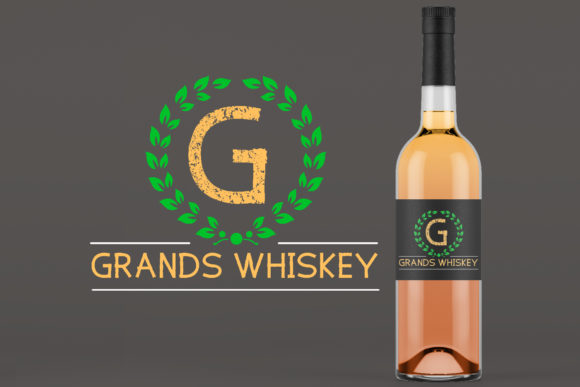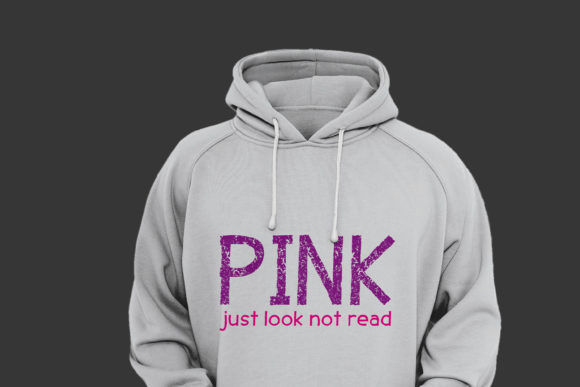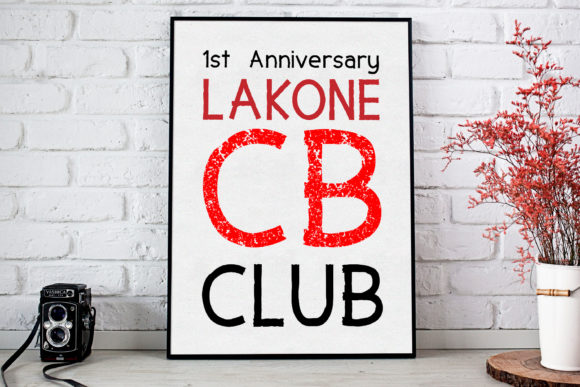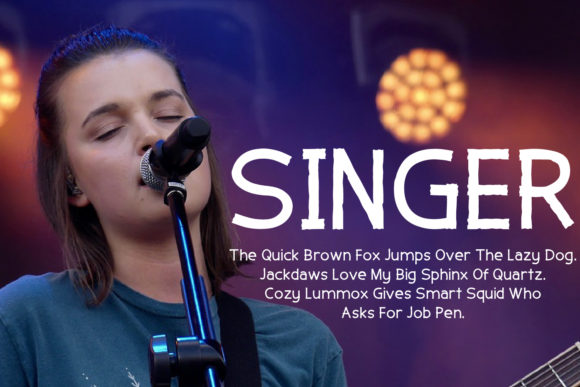
Introduction to Plank Font
Have you ever found yourself staring at a blank canvas, waiting for the perfect design to come to life? The blank slate of a new creative project can be both exhilarating and intimidating, but with the right tools, it can become a beautiful thing. For designers, the search for the perfect font can be a daunting task, but what if we told you that we’ve discovered a game-changer?
Meet the Plank Font, a fresh and unique typeface that’s about to become your new best friend. With its simple, minimalist, and vintage feel, this font is a design resource that’s sure to elevate any project. Whether you’re working on a free download or a high-quality commercial design, the Plank Font is the perfect addition to your toolkit.
Key Features of Plank Font
- Plank Font includes 10 unique characters, including letters, numbers, and symbols
- Perfect for use in logos, branding, and other visual identity elements
Honest Review: Plank Font
I recently stumbled upon the Plank Font, a sleek and modern sans-serif font that’s perfect for any creative project. As a designer, I was excited to see if it lived up to its promise of high-quality design.
- High-quality design: The Plank Font has a clean and minimalist aesthetic that’s sure to elevate any creative project.
Limitations: ⚠️ While the Plank Font is an excellent addition to any design resource, it lacks a full character set, which may limit its use in certain projects.
Overall, I’m impressed with the Plank Font’s clean design and versatility. While it has its limitations, it’s an excellent choice for designers looking for a high-quality font for their creative projects. I’d definitely recommend it to anyone looking for a modern sans-serif font.
How to Use Plank Font
The Plank Font is a versatile, high-quality design resource that can elevate your creative project. With its transparent background and sleek design, it’s perfect for adding a touch of sophistication to your visual content.
The Plank Font is perfect for:
1. Branding and logos
2. Marketing materials
3. Social media graphics
Alternatives to Plank Font